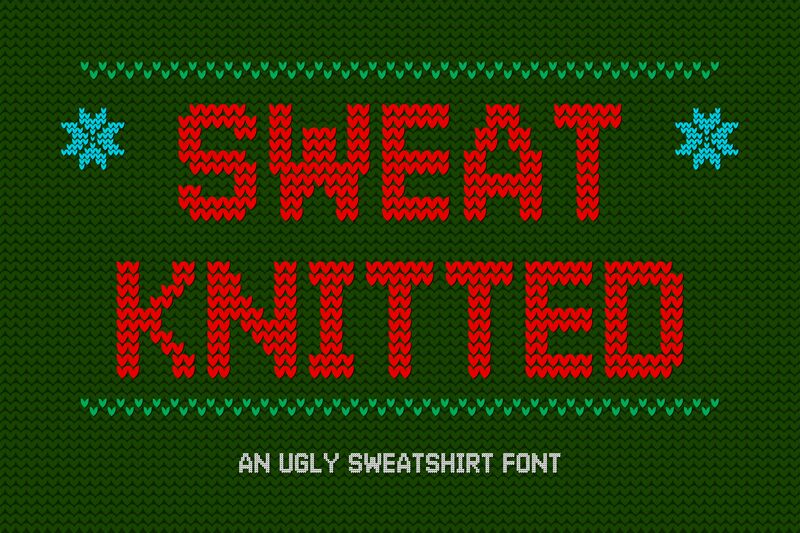
JDR SweatKnitted font
JDR SweatKnitted
JDR-SweatKnitted Ugly Sweater Christmas Font
This free font is ideal for bringing a cozy, knitted look to your ugly sweater designs. It's perfect for a variety of holiday crafts, including shirts, mugs, stickers, and other festive projects.